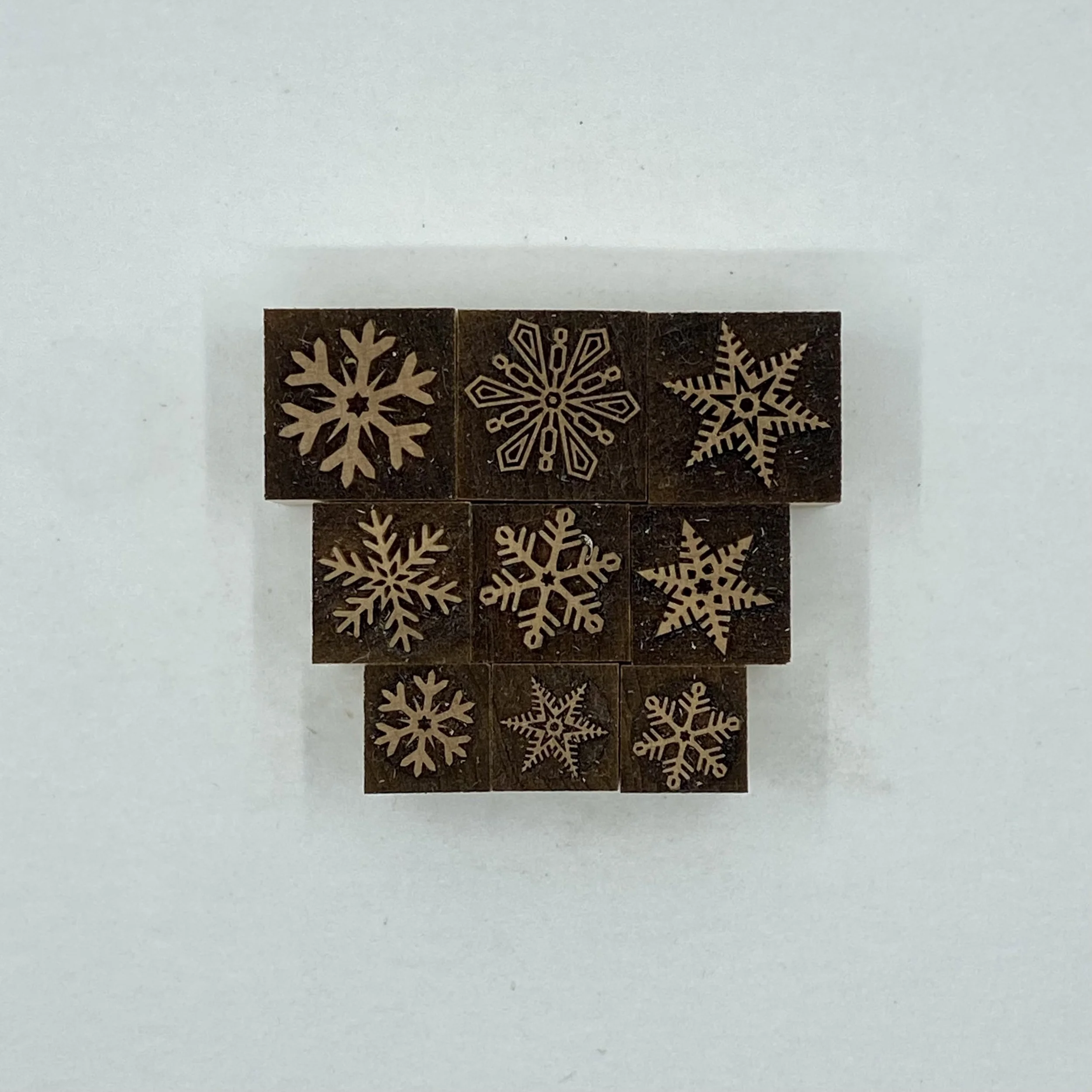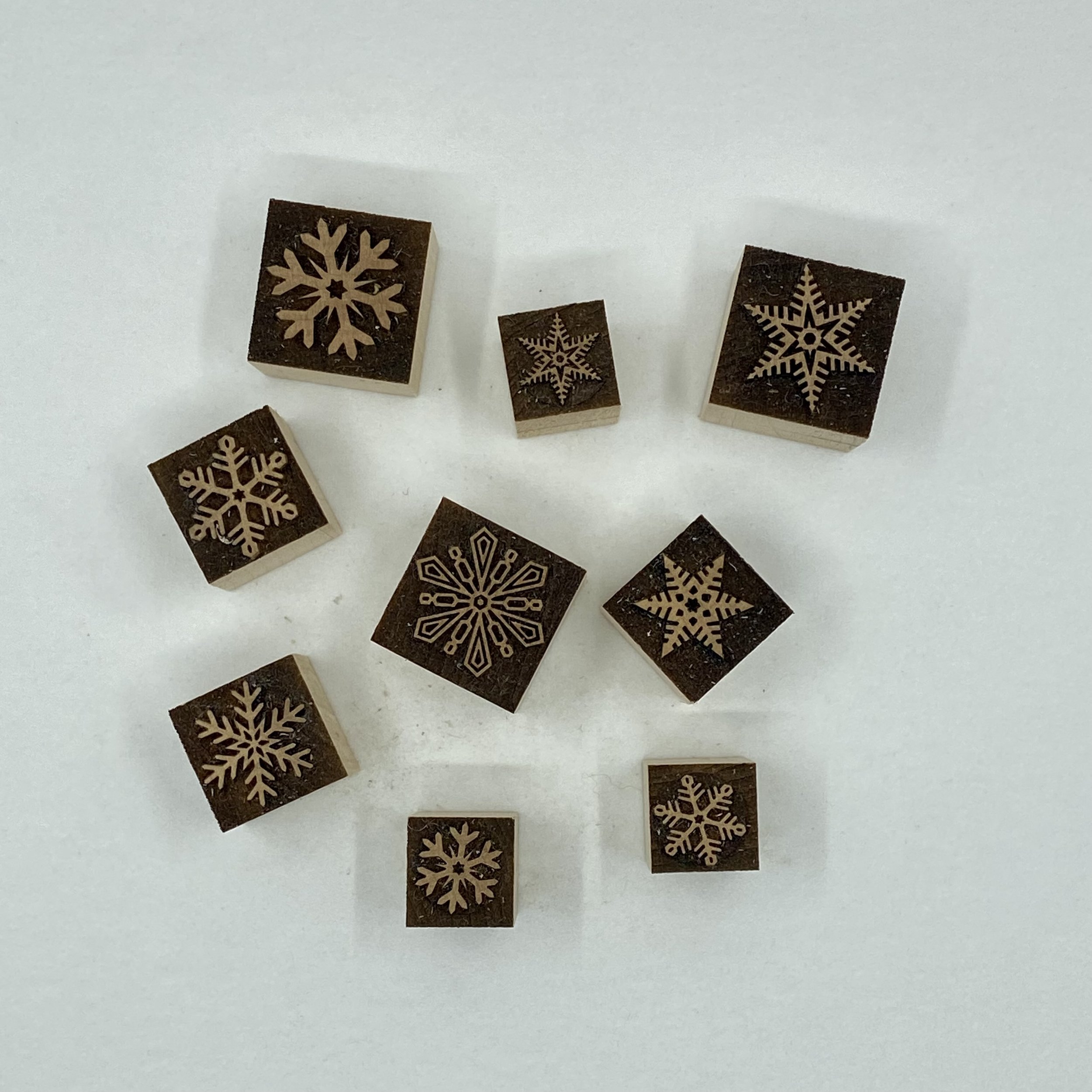
Designed by Scott Moore
A flurry of snowflakes for your winter printing projects. Each Mystery “Blizzard Box” holds a wintry mix of nine snowflake ornaments: three in 4-line, three in 5-line, and three in 6-line sizes.
Drawn from seven unique designs, each box offers a swirling assortment of shapes and angles. You will not receive exactly what is pictured, but you will have at least one of each snowflake design in your box.